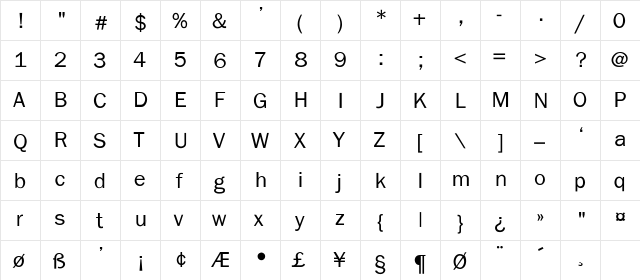
Eluthera Light 1 Regular
Design Context for Eluthera Light 1 Typeface
Eluthera Light 1 offers clean, dependable letterforms without strong stylistic allegiance, making it a practical choice for designers who need flexibility. Its slender proportions lend an understated elegance to any composition.
Pro Tip: Use Eluthera Light 1 in both headline and body roles to test its range before committing to a single application.